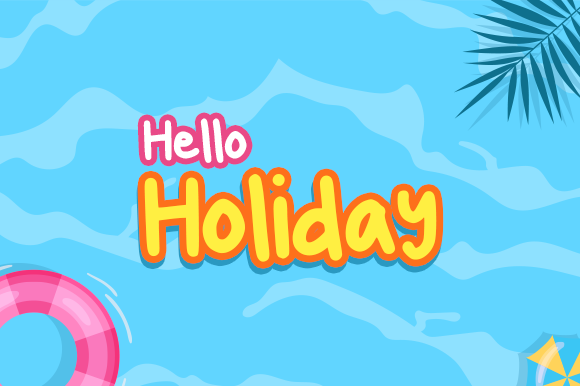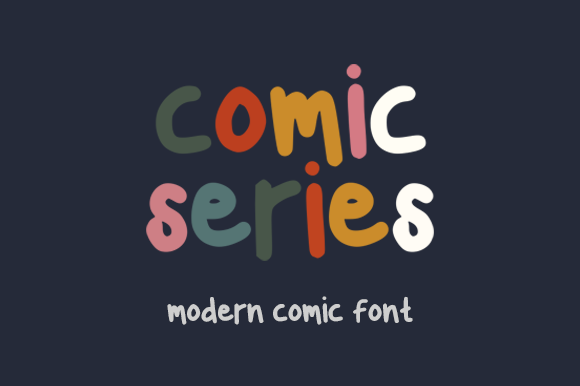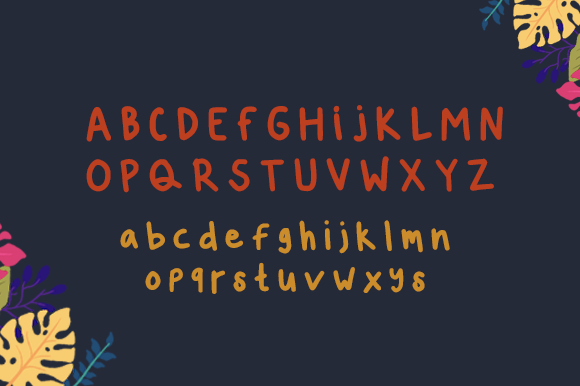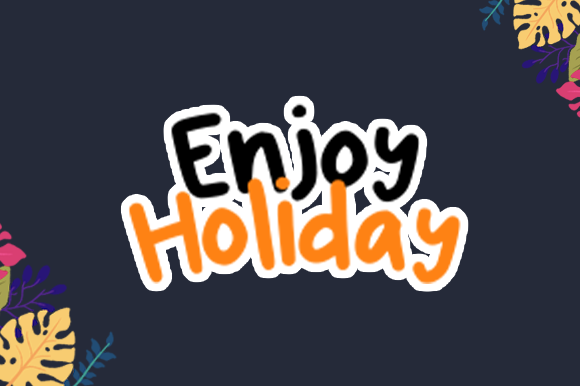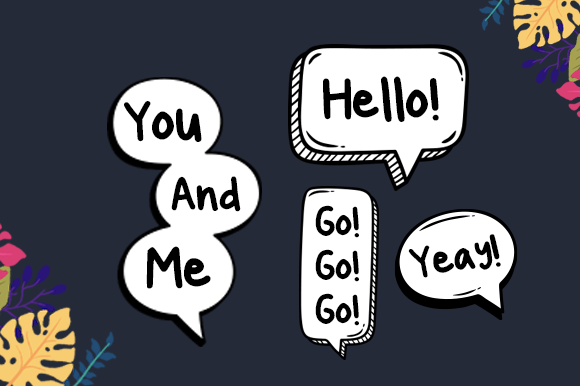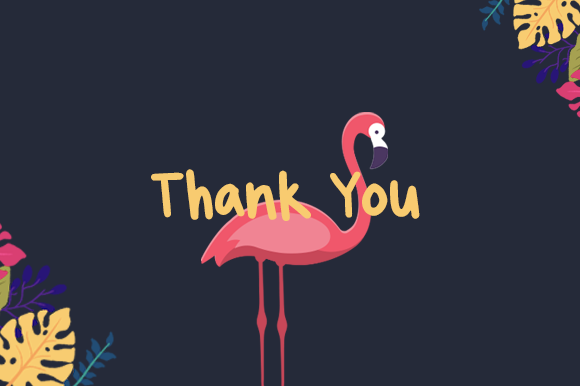
Introduction to Ridhans Font
Ridhans is a cute, fun and quirky handwritten font.
Add it to your most creative kids or school project, and notice how it brightens them up .